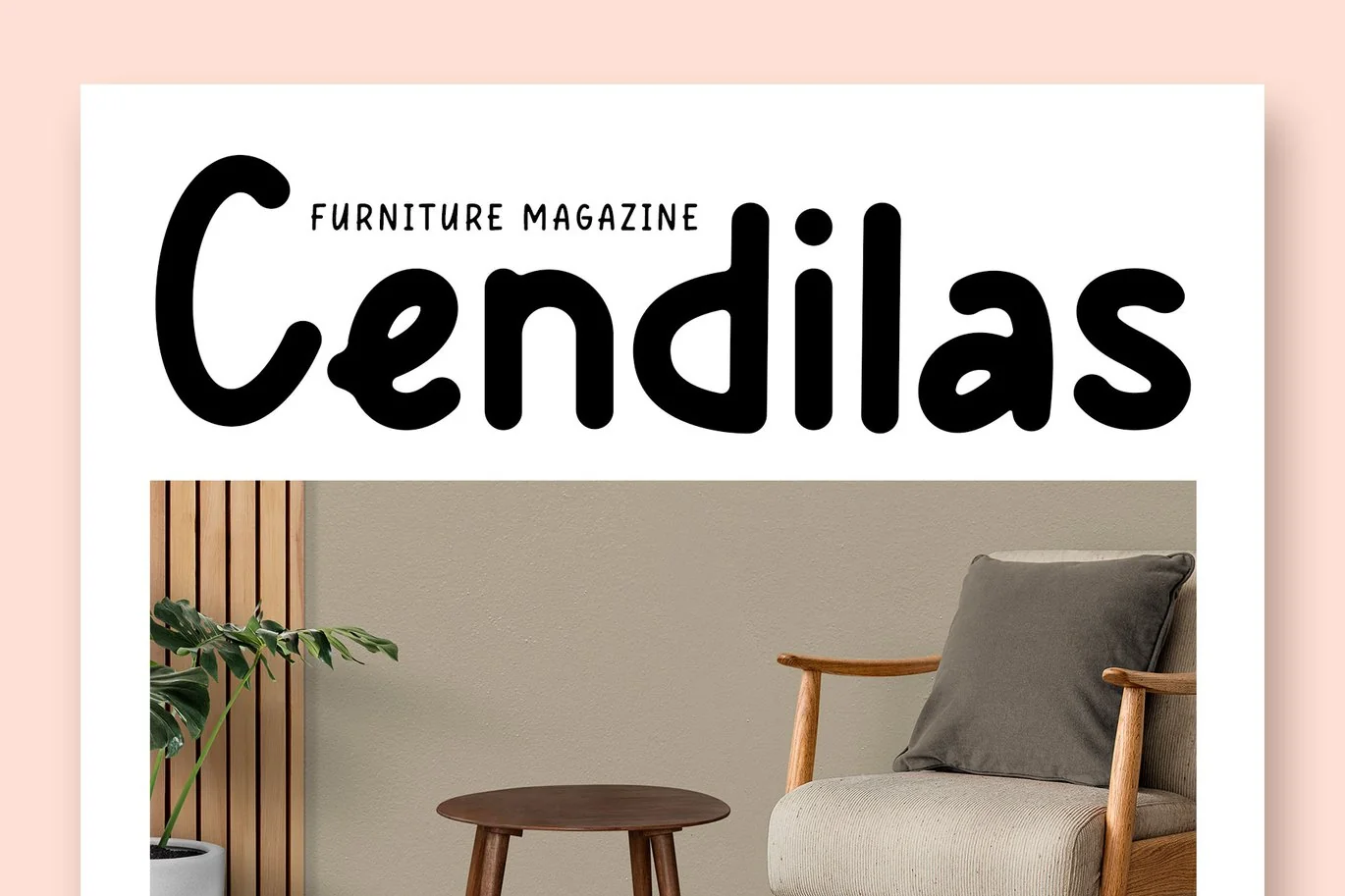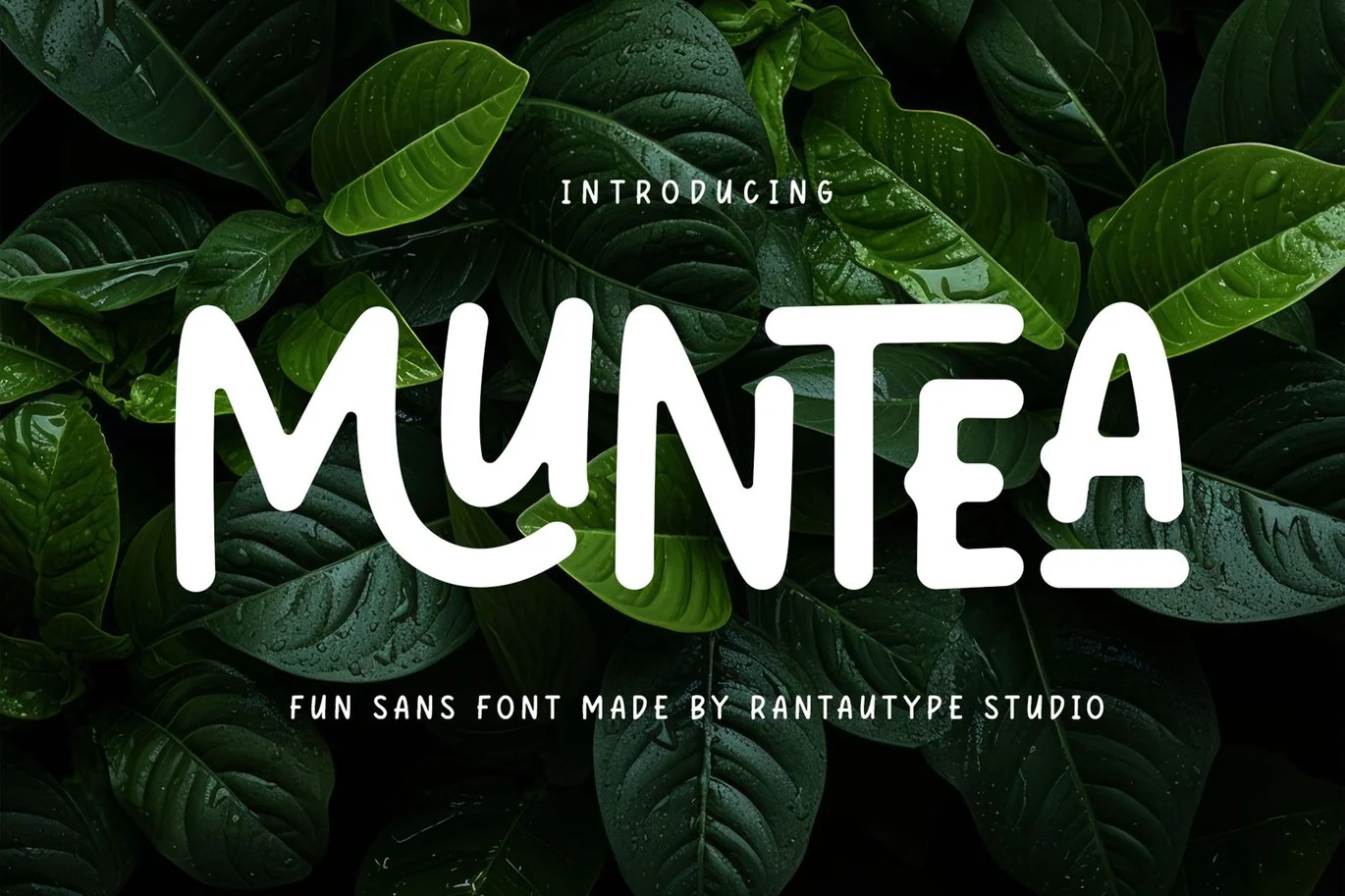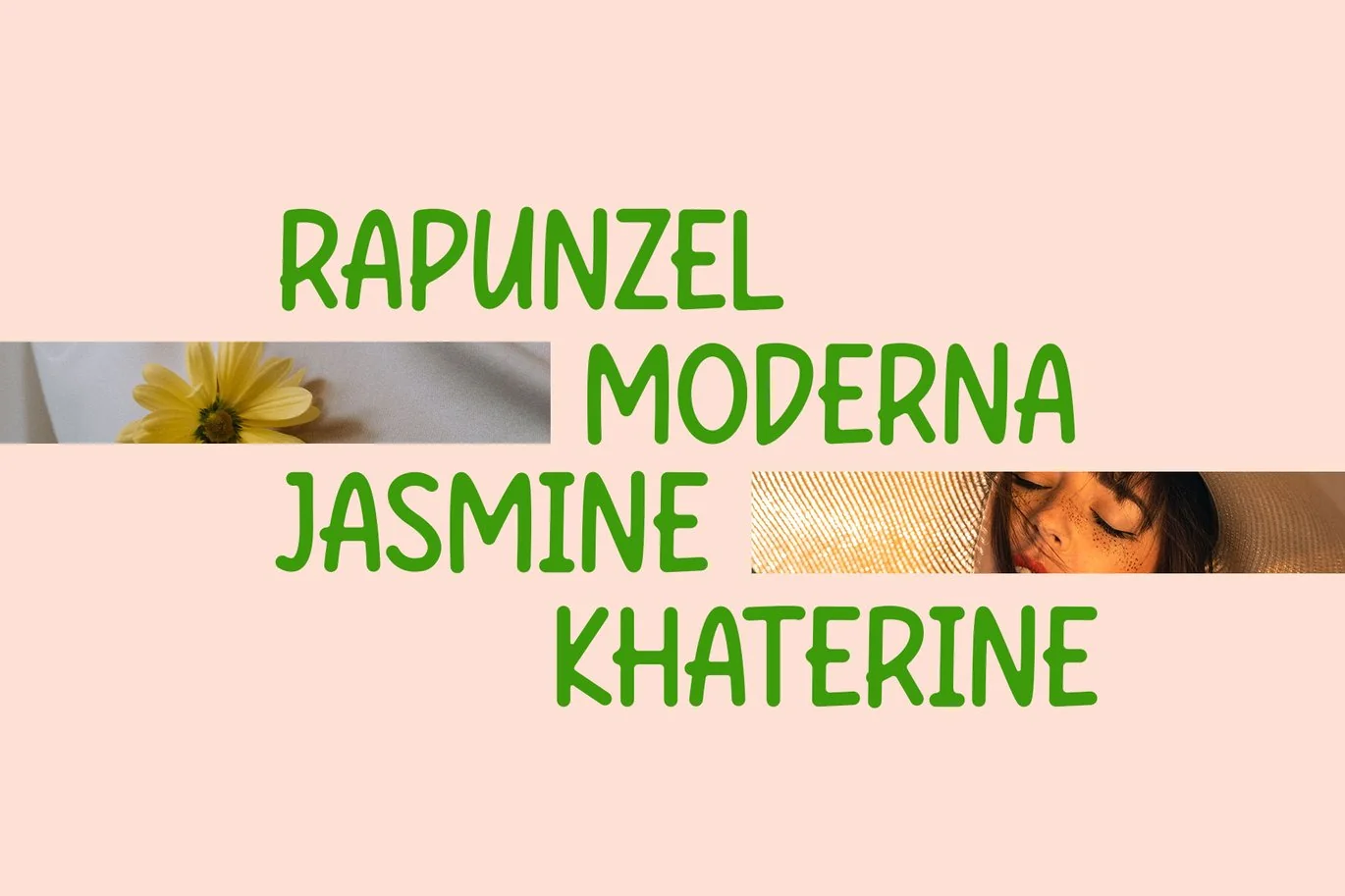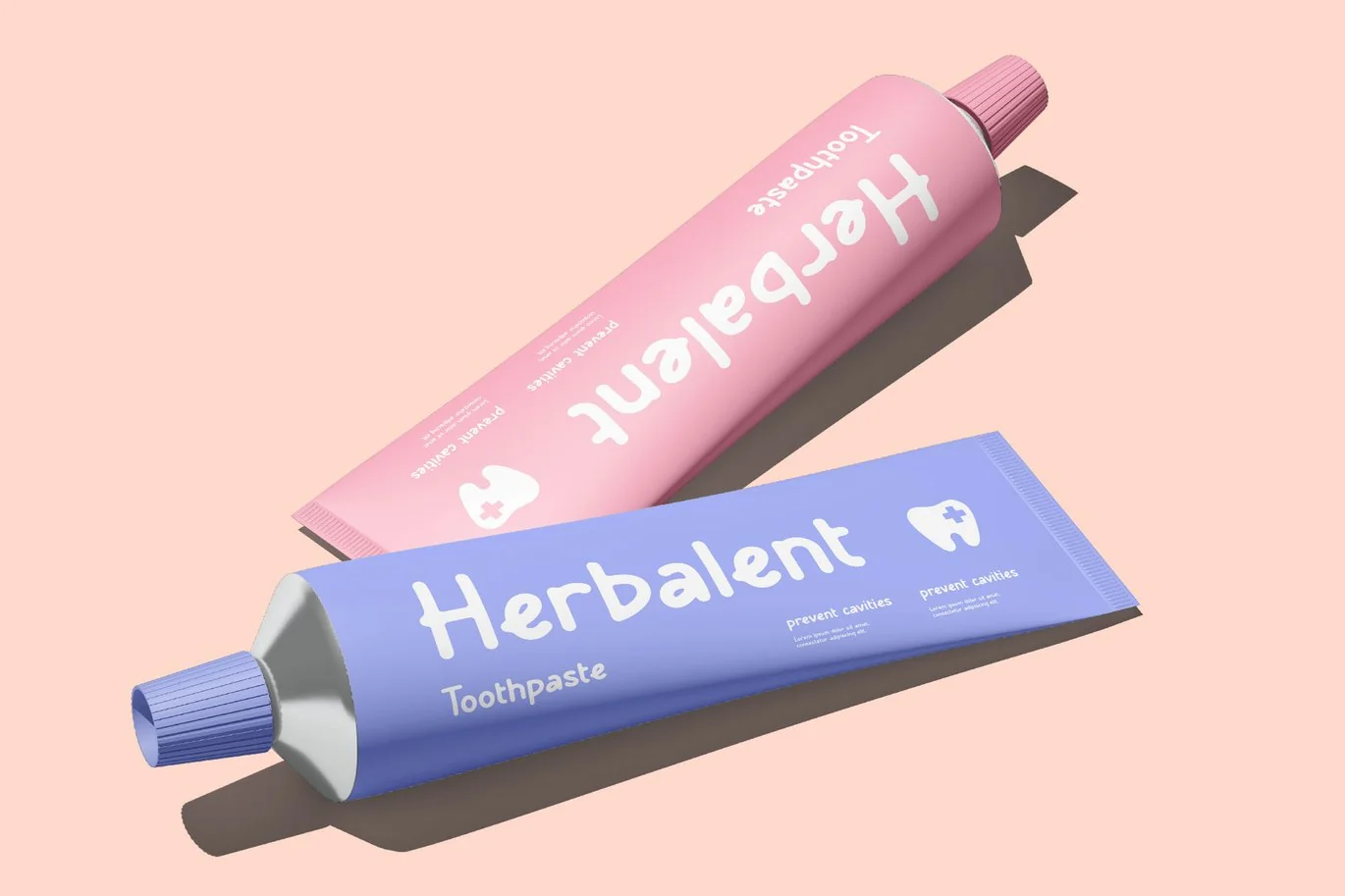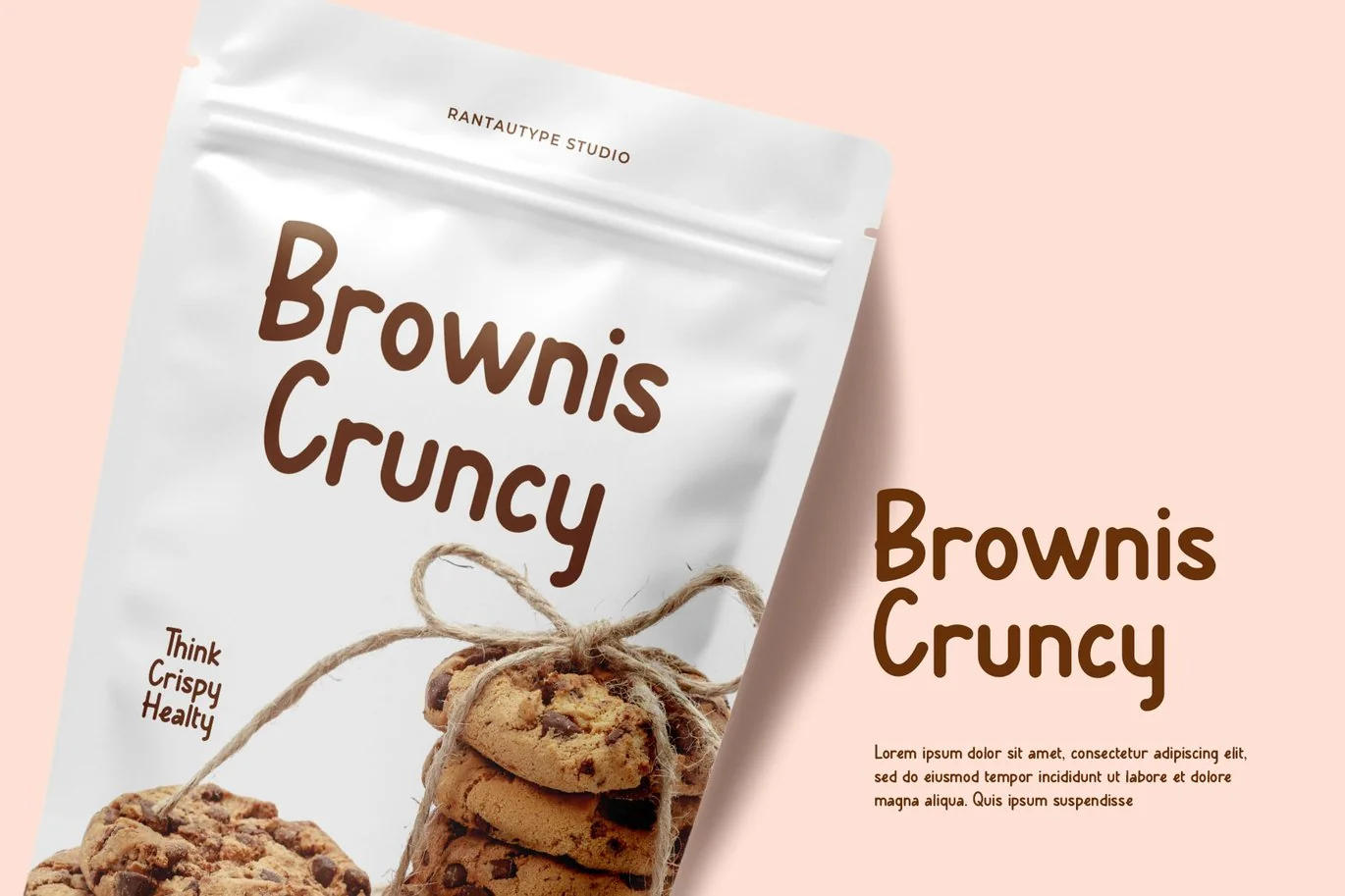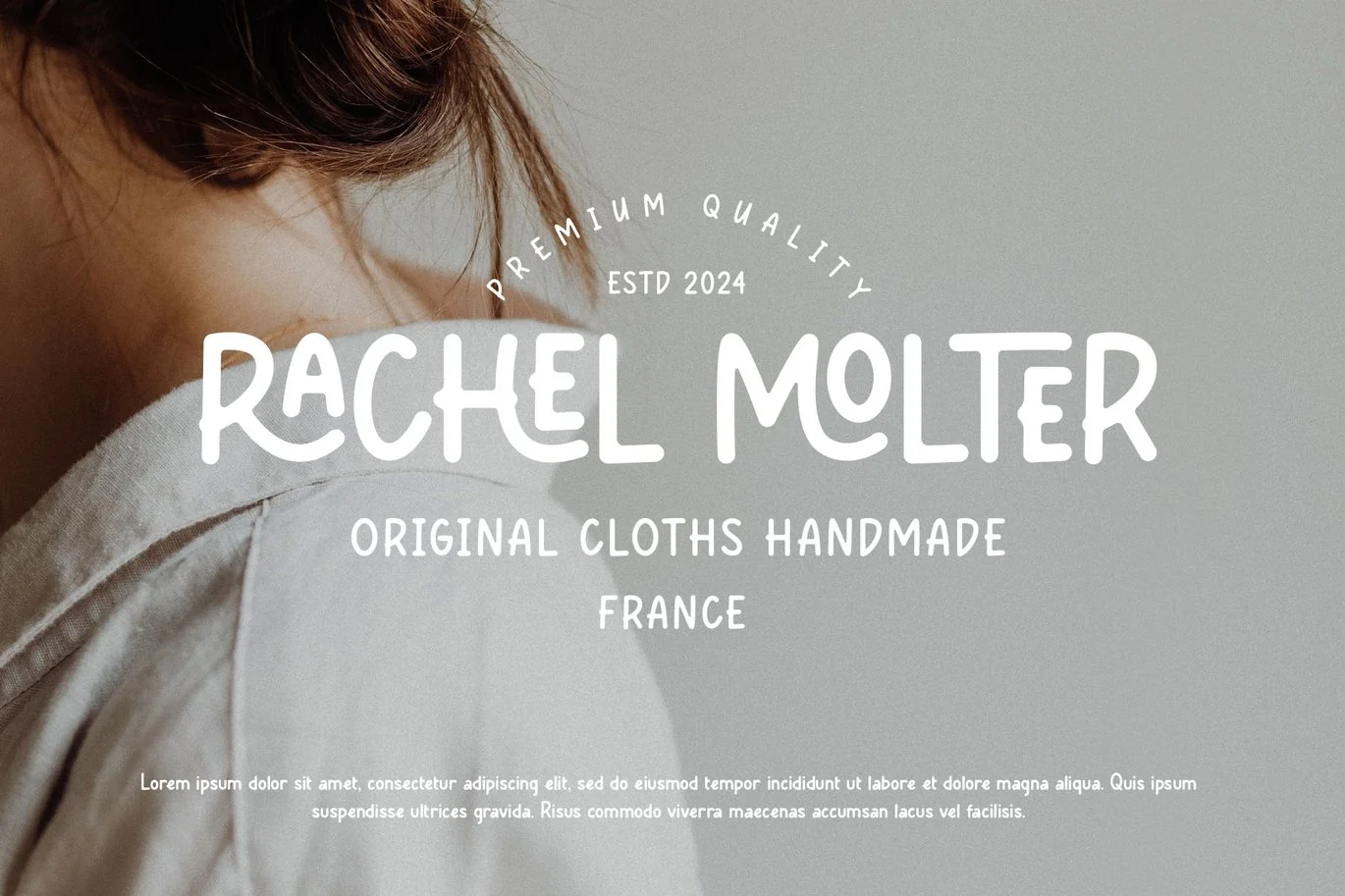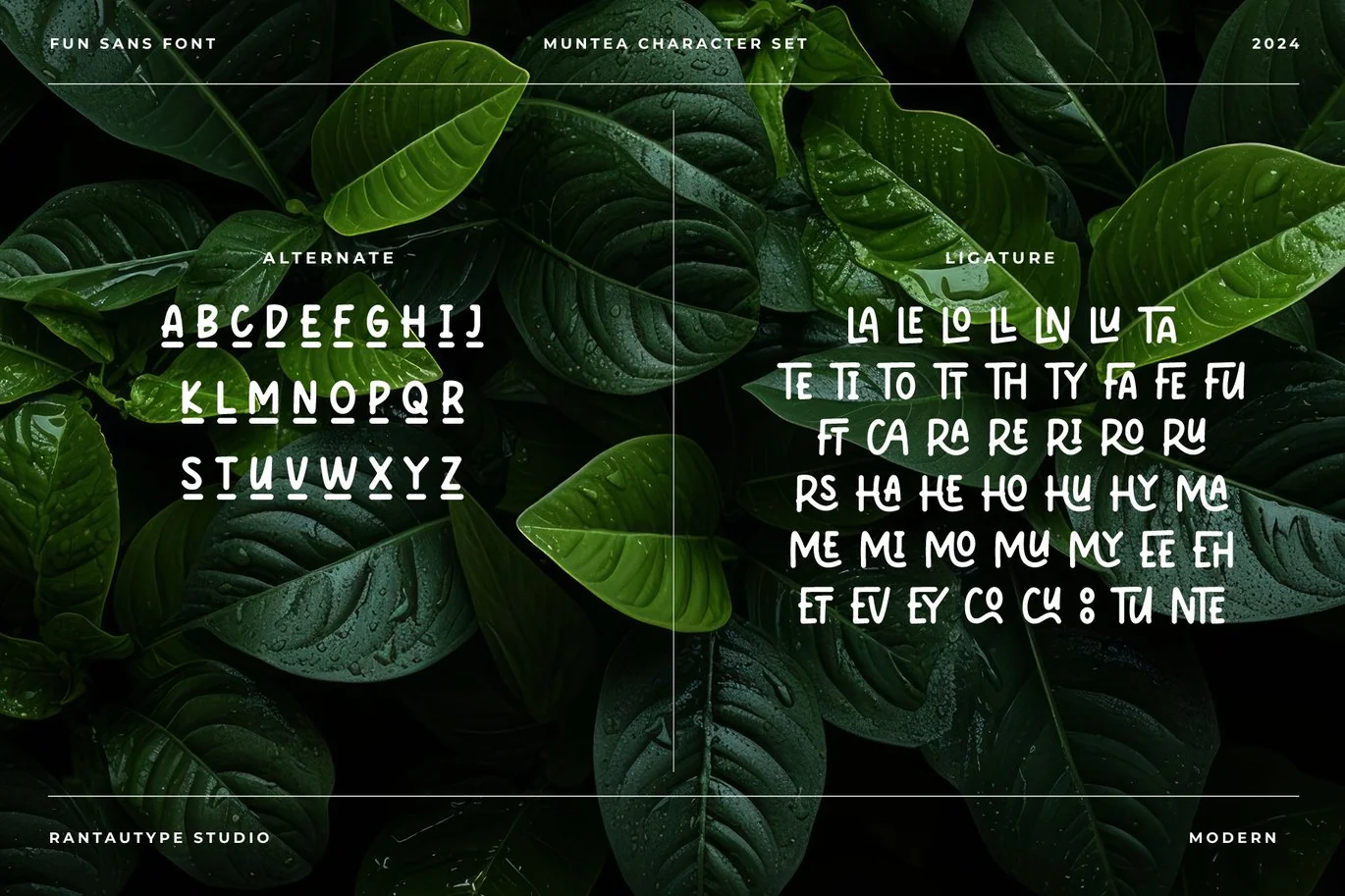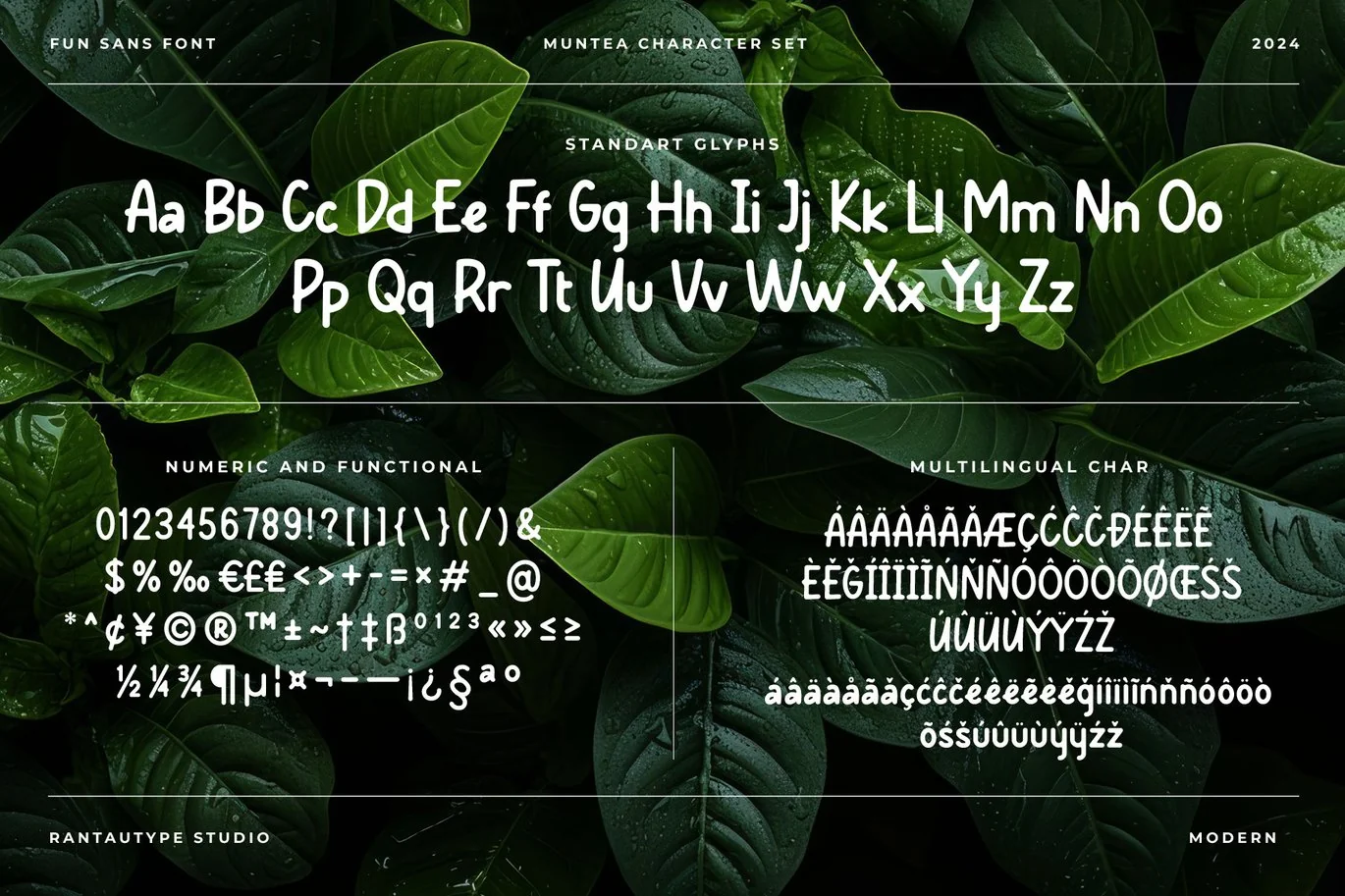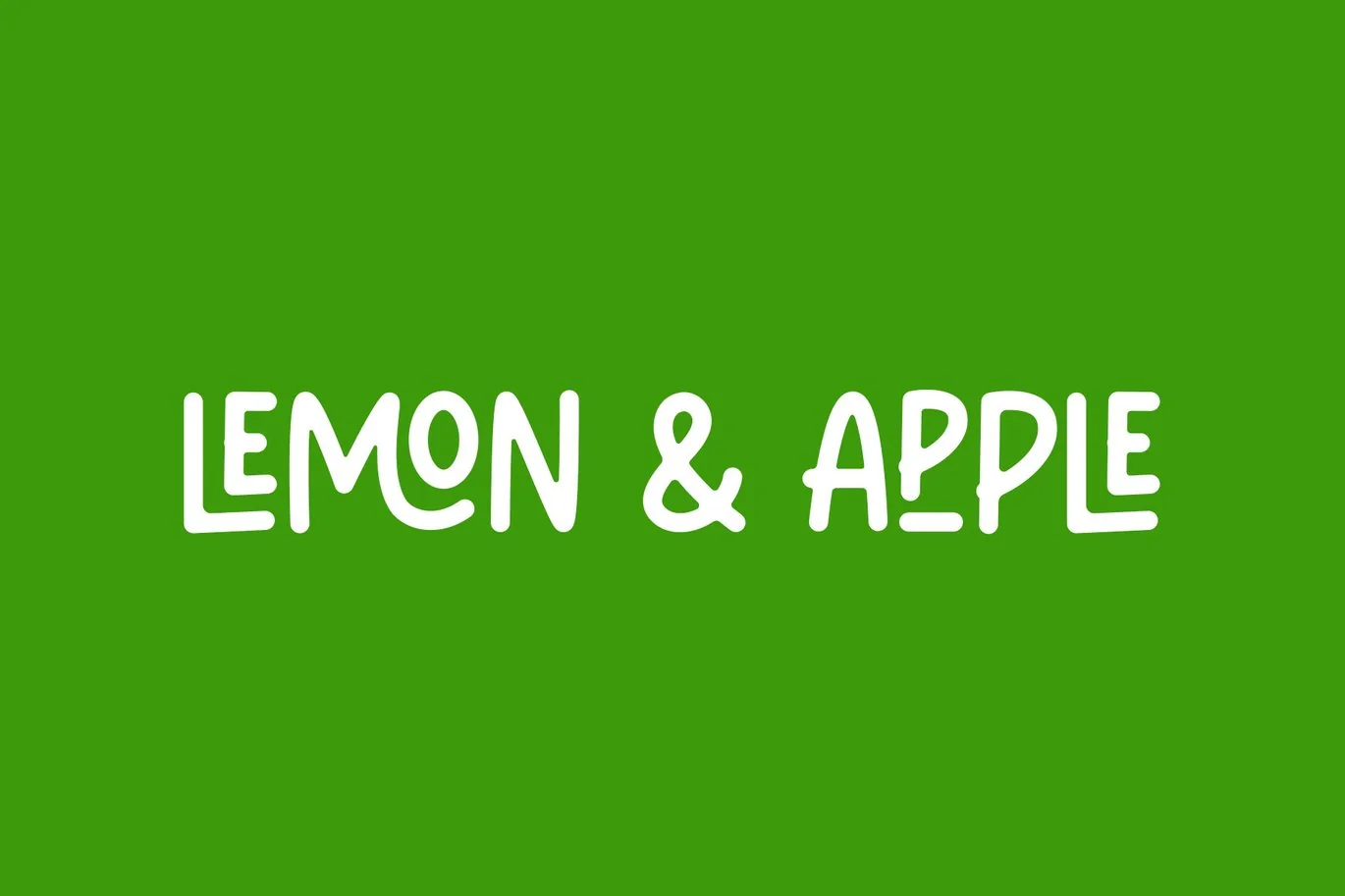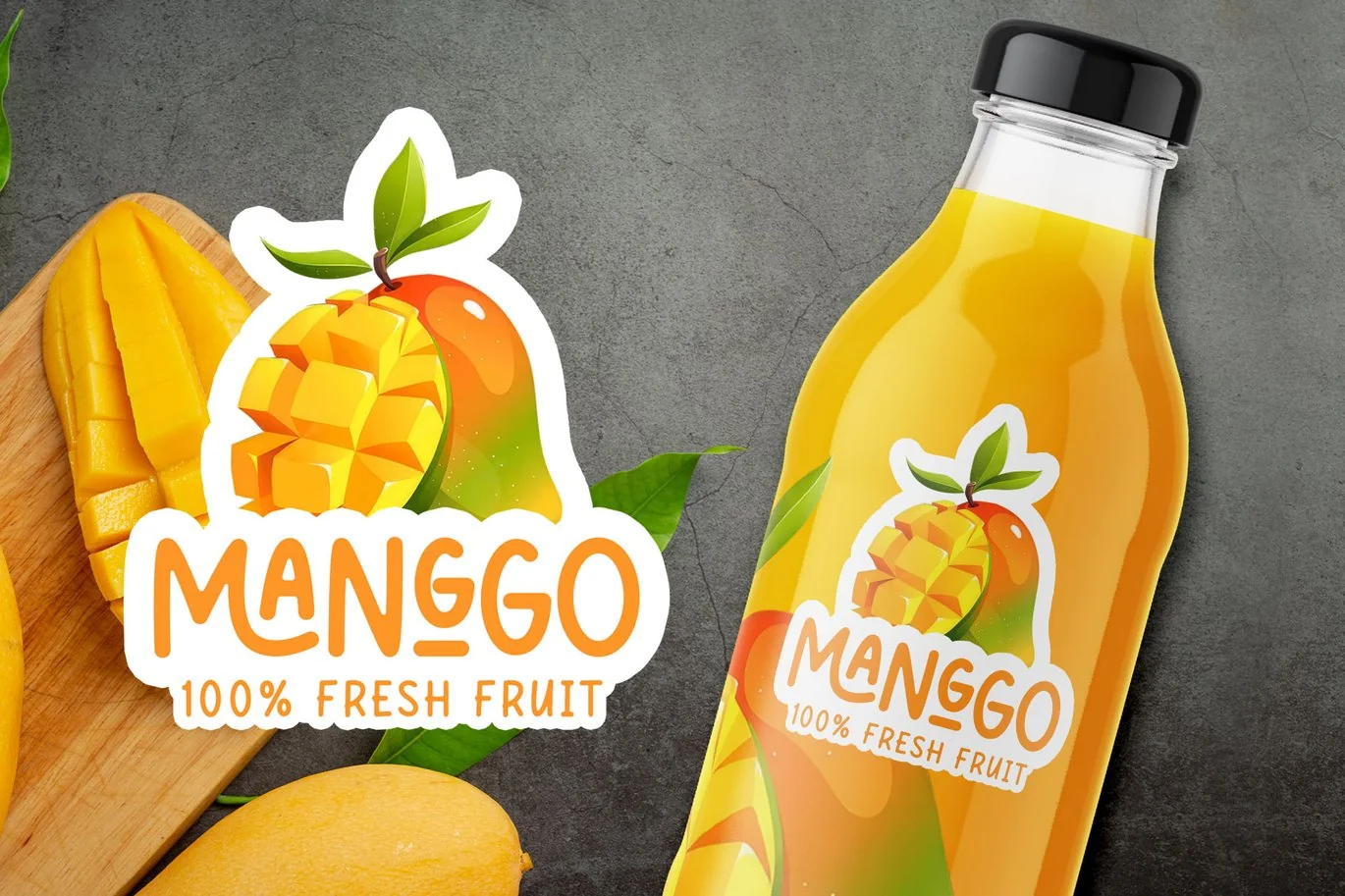
Muntea Fun Sans Font
Muntea is fresh and unique sans serif font with smooth rounded edge. Muntea bring attractive of fun and clean to make your design more stand out. Muntea come with alternate and unique ligature, so that you can mix and match to suit your creativity.
Muntea is a perfectly choice for any creative endeavor, chic, lifestyle design such as logotype, advertisements, watermark on photography, stationery, branding project, display and magazine, invitation, corporate brand, product design, label, business project and many other project with fun touch.